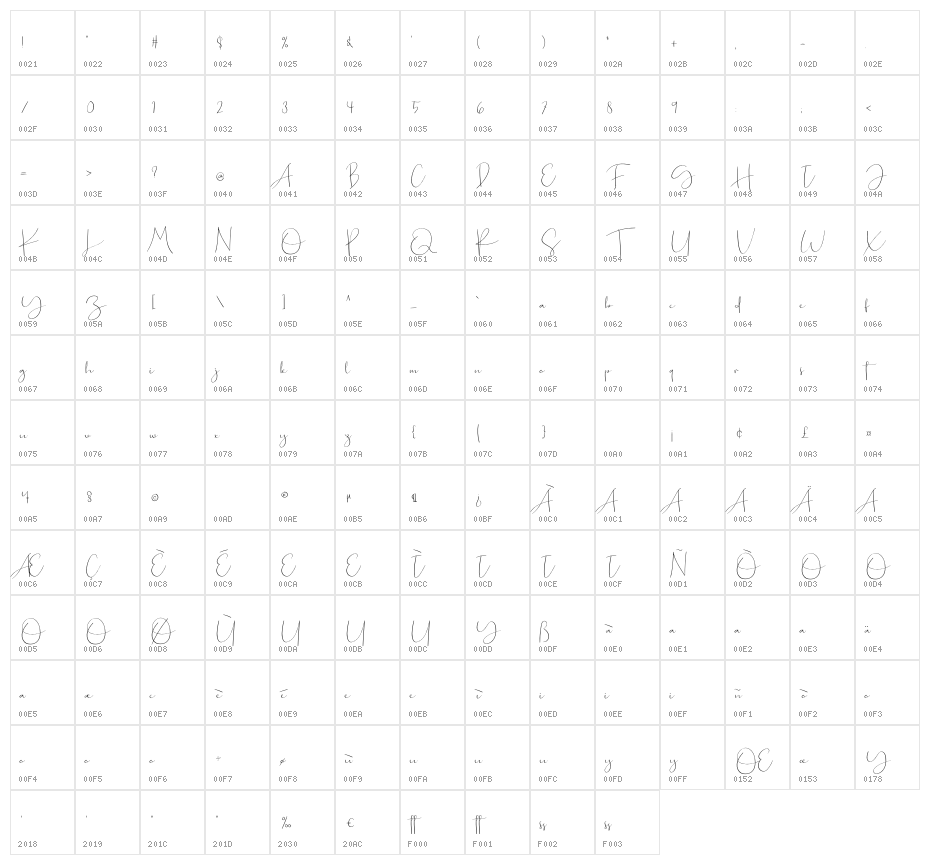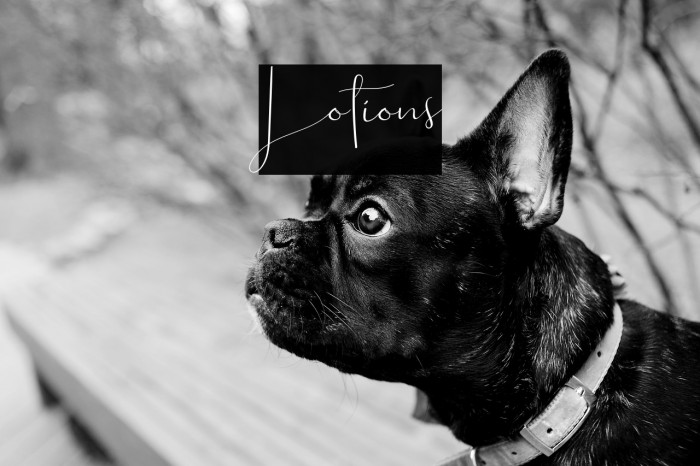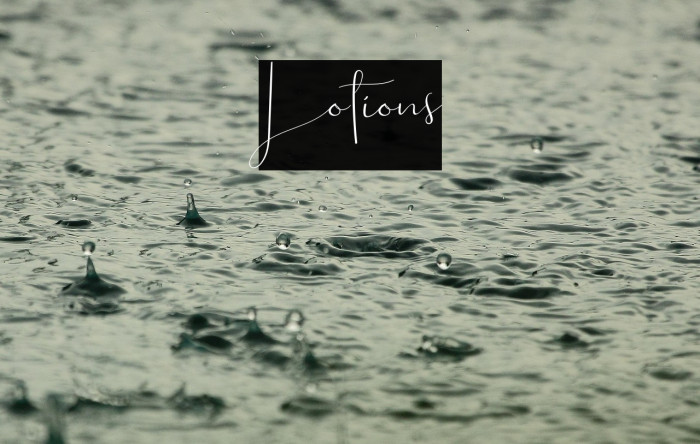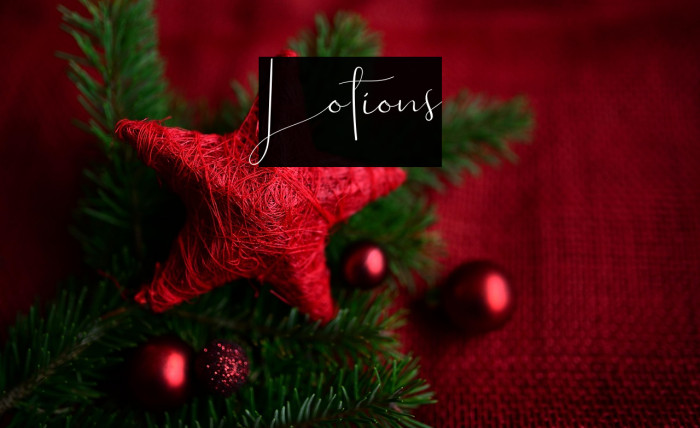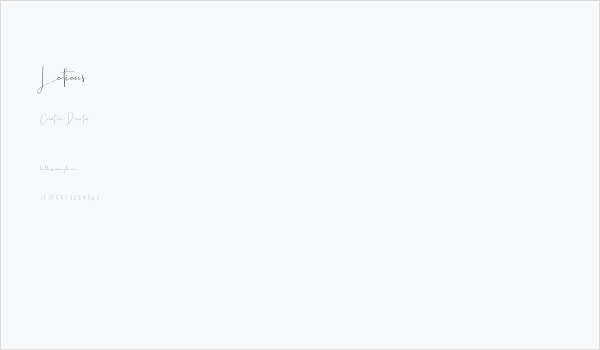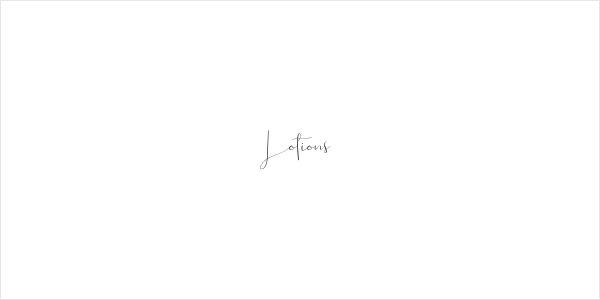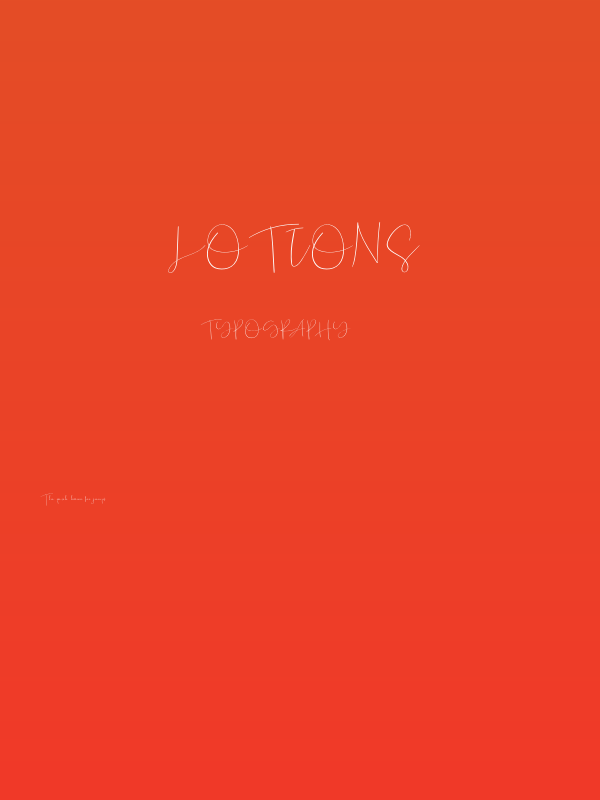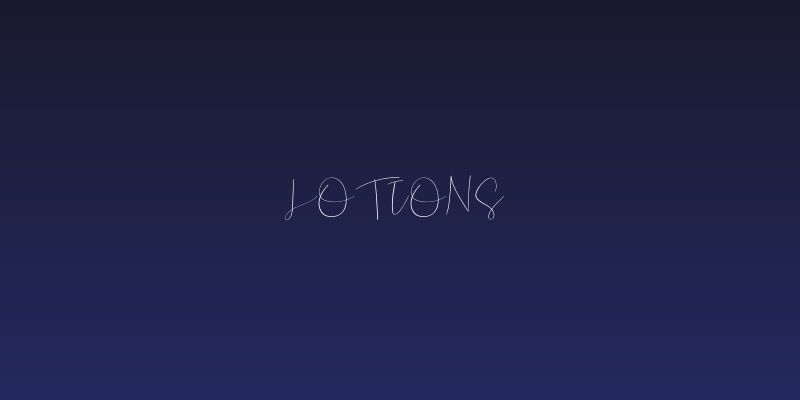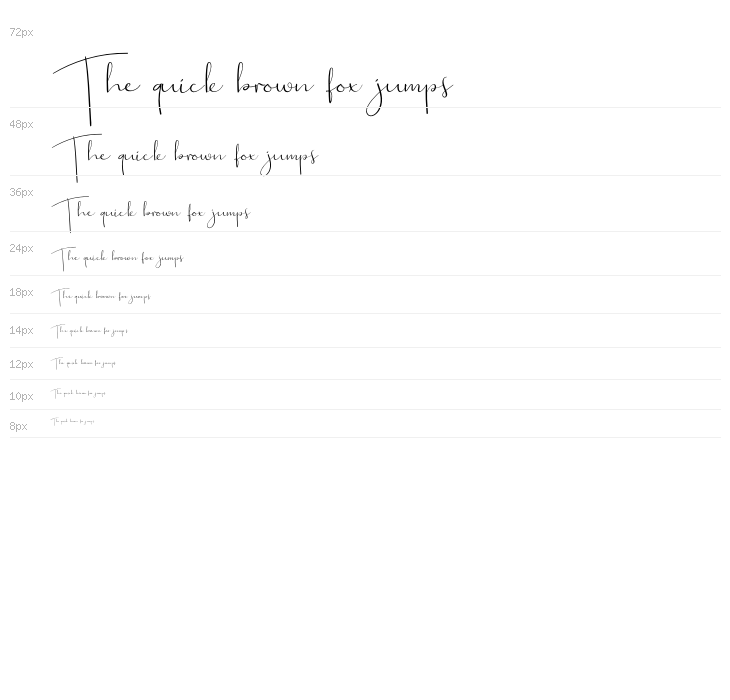
Lotions Font
Lotions Description
A delicate, handwritten script font with thin strokes and elegant curves, giving it a sophisticated and artistic appearance.
| Proposed Projects | Invitations, greeting cards, branding, and decorative purposes. |